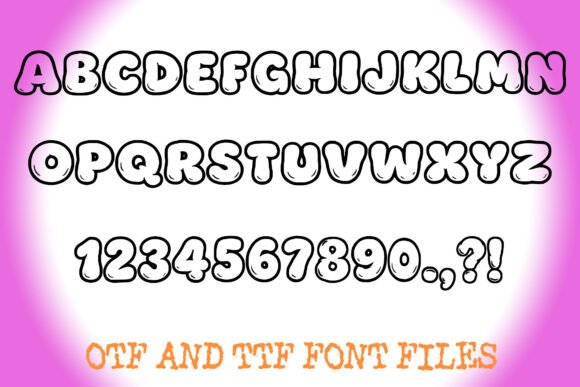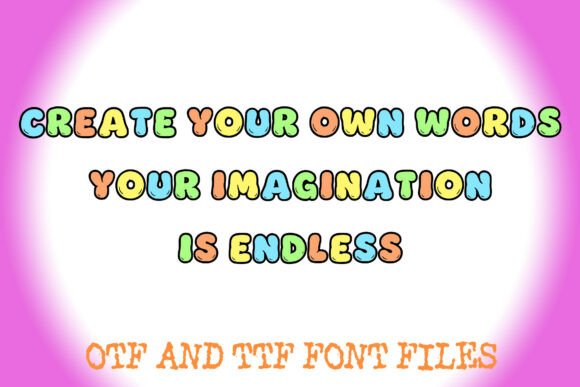
Introducing Chunky Funky Font: The Ultimate Playful Typeface for Creative Projects
Are you tired of using the same old fonts for your designs? Do you want to add a dash of personality and whimsy to your projects? Look no further than Chunky Funky Font, a bold and playful bubble-style font that’s sure to bring a smile to your face. With its thick, rounded letters and fun cartoon feel, Chunky Funky is perfect for kids’ designs, party invitations, comics, posters, and anything that needs a dose of cheerful energy.
The Characteristics of Chunky Funky Font
So, what makes Chunky Funky Font so special? Here are just a few of its standout features:
- Thick, rounded letters: Chunky Funky Font features letters that are bold, rounded, and utterly charming. The thick lines and smooth curves give the font a friendly, approachable feel that’s perfect for youthful and lighthearted projects.
- Fun cartoon feel: This font has a distinctly playful vibe that’s reminiscent of classic cartoons and comics. It’s the perfect choice for designers who want to add a touch of whimsy to their work.
- Bubble-style design: Chunky Funky Font features a bubble-style design that’s both fun and visually appealing. The rounded letters and soft curves give the font a bouncy, energetic feel that’s sure to capture attention.
Uses for Chunky Funky Font
So, what can you use Chunky Funky Font for? The possibilities are endless, but here are a few ideas to get you started:
- Kids’ designs: Chunky Funky Font is perfect for designing materials for kids, such as children’s books, activity sheets, and educational resources.
- Party invitations: Add a touch of fun and whimsy to your party invitations with Chunky Funky Font. It’s the perfect choice for birthday parties, baby showers, and other celebrations.
- Comics and graphic novels: If you’re creating comics or graphic novels, Chunky Funky Font is a great choice for speech bubbles, captions, and other text elements.
- Posters and flyers: Use Chunky Funky Font to create eye-catching posters and flyers for events, promotions, and other marketing campaigns.
Why Choose Chunky Funky Font?
So, why should you choose Chunky Funky Font for your next project? Here are just a few reasons:
- Unique and playful: Chunky Funky Font is a one-of-a-kind typeface that’s sure to stand out from the crowd. Its playful, whimsical design makes it perfect for designers who want to add a touch of personality to their work.
- Easy to read: Despite its bold, chunky design, Chunky Funky Font is surprisingly easy to read. The clear, rounded letters make it perfect for use in a variety of contexts, from body text to headings.
- Versatile: Chunky Funky Font is a versatile typeface that can be used in a wide range of projects, from digital designs to print materials.
Tips for Using Chunky Funky Font
Here are a few tips for getting the most out of Chunky Funky Font:
- Use it sparingly: While Chunky Funky Font is playful and fun, it can be overwhelming if used too much. Use it sparingly to add emphasis and personality to your designs.
- Experiment with colors: Chunky Funky Font looks great in a variety of colors, from bright and bold to pastel and soft. Experiment with different colors to find the perfect look for your project.
- Pair it with other fonts: Chunky Funky Font pairs well with a variety of other fonts, from simple sans-serifs to more decorative script fonts. Experiment with different pairings to find the perfect combination for your project.
In conclusion, Chunky Funky Font is a playful and bold bubble-style font that’s perfect for designers who want to add a touch of personality and whimsy to their work. With its thick, rounded letters and fun cartoon feel, it’s ideal for kids’ designs, party invitations, comics, posters, and anything that needs a dose of cheerful energy. So why not give it a try and see the difference it can make in your designs?